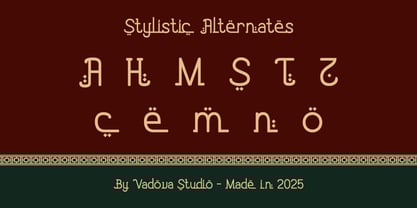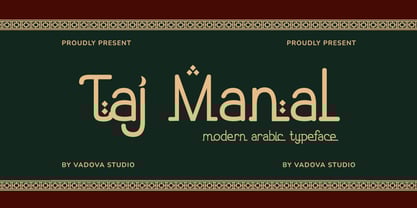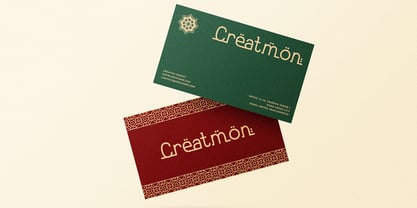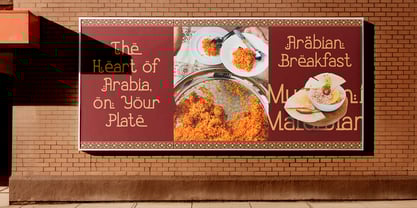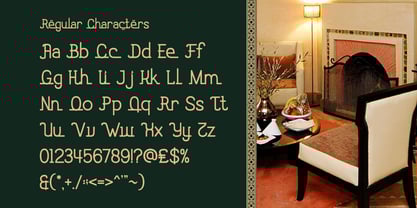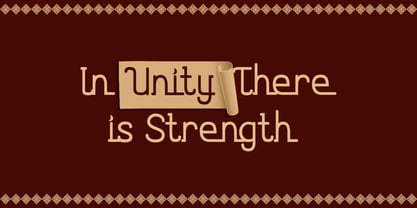
Taj Manal
by Vadova Std
The Taj Manal Font Family was designed by and published by Vadova Std. Taj Manal contains 1 styles. More about this family
Elevate your designs with Taj Manal Modern Arabic Font, a modern font perfect for adding elegance and style to your projects. This font offers key features like OpenType format compatibility, uppercase and lowercase characters, plus numerals and punctuation, perfect for versatile and professional designs. Whether it’s for quotes, logotypes, magazine headers or more.